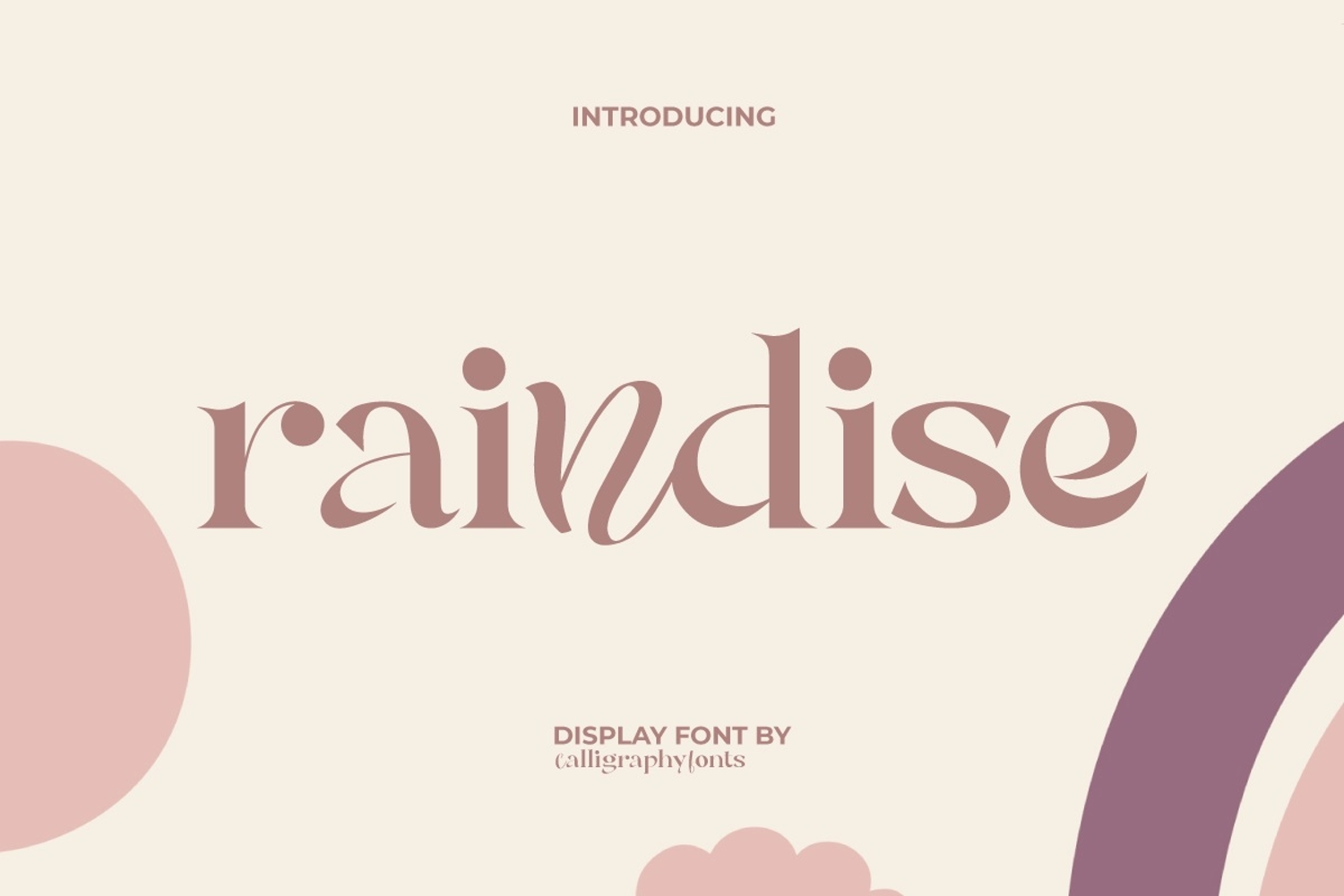
Raindise Font
Raindise Font is an elegant and timeless display font inspired by the charm of vintage typography that has been modernized. It feels different from the usual because all the characters are displayed in lowercase with a slightly different mix of styles. Perfect for craft, corporate, fashion, graphic design, home designer, home furniture, photography, retail soap, and much more.
Say hello to Raindise â€” a whimsical and bold display font inspired by the cozy feeling of rainy days, warm drinks, and creative expression. With its unique curves and cheerful attitude, Raindise is the perfect font for bringing personality to your projects. Ideal for branding, children’s books, posters, packaging, social media content, and more — Raindise blends playfulness and clarity into one expressive typeface.
Looking for a font that combines whimsy and boldness? Meet Raindise Display Font â€” a fun, handcrafted typeface inspired by the cozy magic of rainy days. Perfect for branding, kids’ products, invitations, posters, and social media, Raindise brings warmth and personality with its smooth curves and playful style.
Introducing Raindise Display Font â€” a charming, playful typeface inspired by the gentle rhythm of rainy days and cozy moments. This bold yet friendly font is perfect for adding warmth and character to your design projects. Whether you’re working on children’s books, greeting cards, logos, packaging, or social media content, Raindise brings a handcrafted, inviting feel that captivates your audience.
• Playful and bold display style
• Perfect for logos
Raindise Font captures the nostalgia of classic aesthetics with a modern twist. Easily adaptable to any design need, it makes it easy to achieve eye-catching results with minimal effort. You can use this font for apps, blogs, body text, brochure, business card, carved objects, greeting cards, headers, logo, mockup, packaging, quotes, template, title, websites, and others.